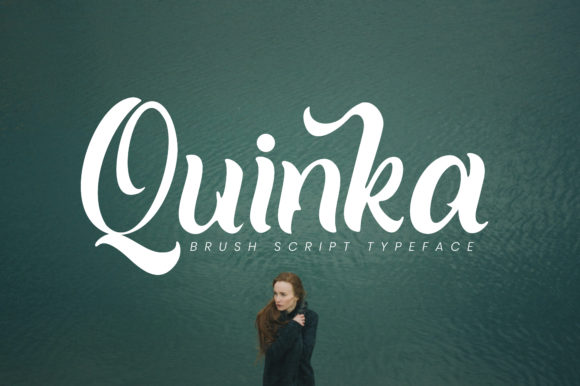
About Quinka Font
Quinka is a casual and clean handwritten font. Quinka will look outstanding in any context, whether itβs being used on busy backgrounds or as a standalone headline!